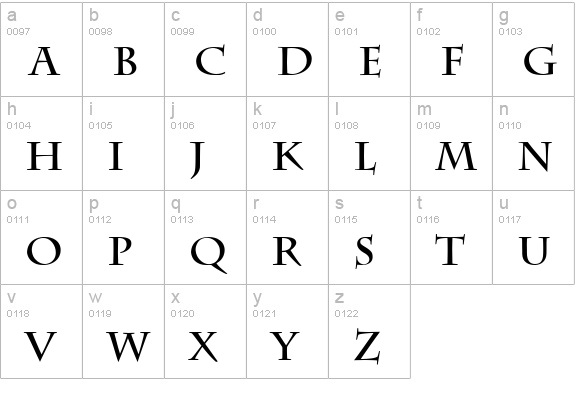
Empire Bold Font Details
Empire Bold is a strong, high-contrast variant in the Empire typeface family \xE2\x80\x94 well suited to headlines, attention-grabbing titles, and strong calls-to-action.
Empire Bold is a striking and powerful font that exudes confidence and sophistication. Its bold and commanding presence makes it ideal for headlines, titles, and other design projects that require a strong visual impact. With its clean lines and modern aesthetic, Empire Bold is sure to make a lasting impression. The best part? Empire Bold is available for free download at FontsMarket.com. This means you can add this stunning font to your collection without any cost, allowing you to enhance your designs with its bold and impactful style. Don't miss out on the opportunity to elevate your projects with the timeless elegance of Empire Bold - download it for free today!